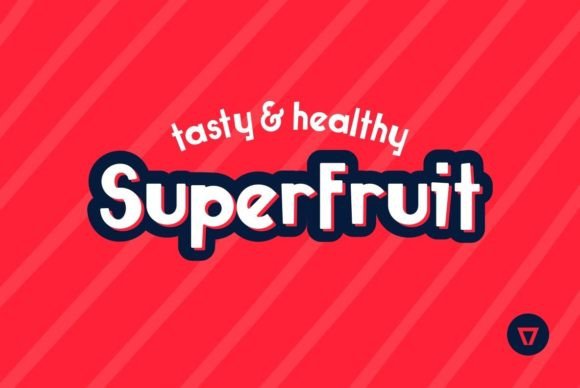
Unleash your creativity with Superfruit, the ultimate display font that bursts with fruity delight and playful energy. This typographic masterpiece is a feast for the eyes, designed to make your words dance off the page with style and personality. Crafted by the ingenious nimatype, Superfruit is a visual treat that will transform your designs into captivating works of art.
With its tantalizing curves, juicy ligatures, and a dash of retro charm, Superfruit is the perfect choice for creating posters that pop, flyers that fly off the shelves, invitations that entice, and logos that leave a lasting impression. Whether you're a seasoned designer or just starting out, Superfruit has the power to elevate your projects to new heights of visual appeal.
Dive into the vibrant world of Superfruit and discover a font that's as versatile as it is delicious. From bold headlines that grab attention to playful subheadings that add a touch of whimsy, Superfruit is the perfect companion for any creative project. Its carefully crafted characters dance harmoniously together, creating a visual symphony that will captivate your audience and leave them craving more.